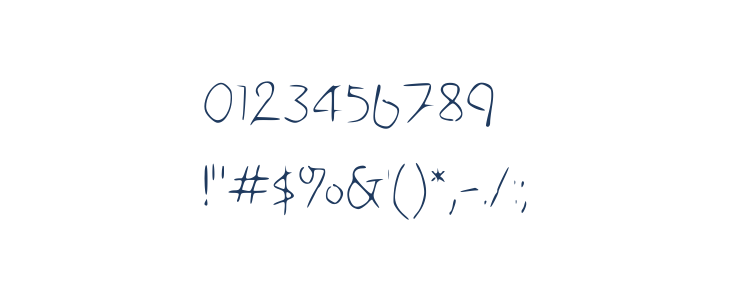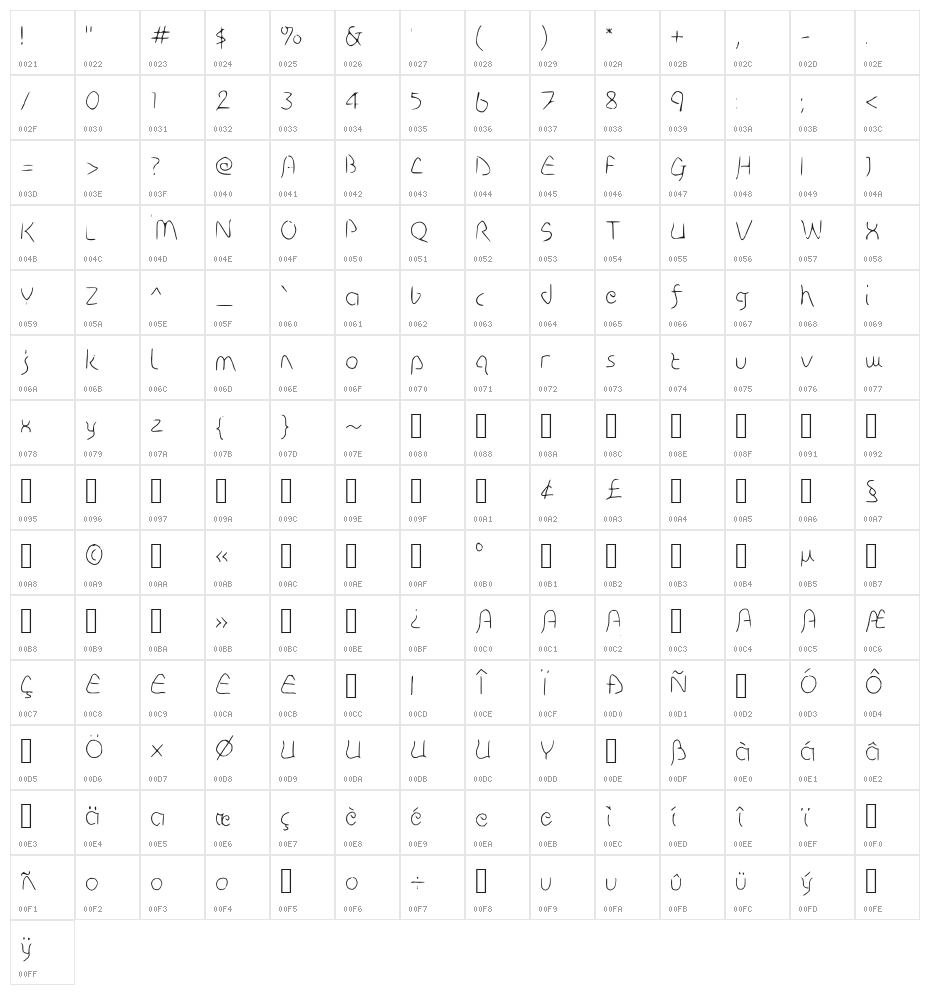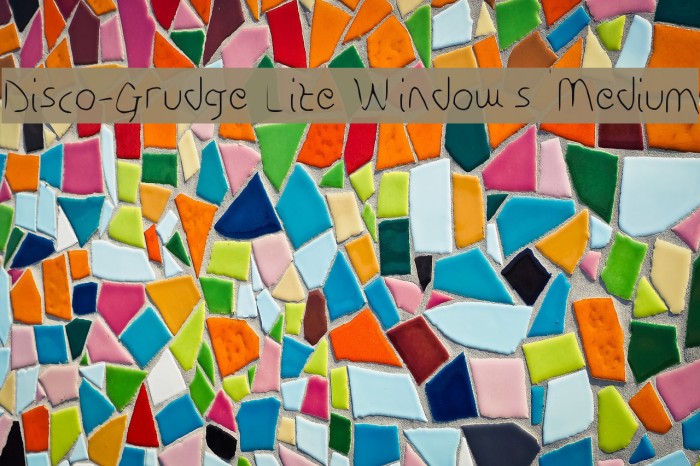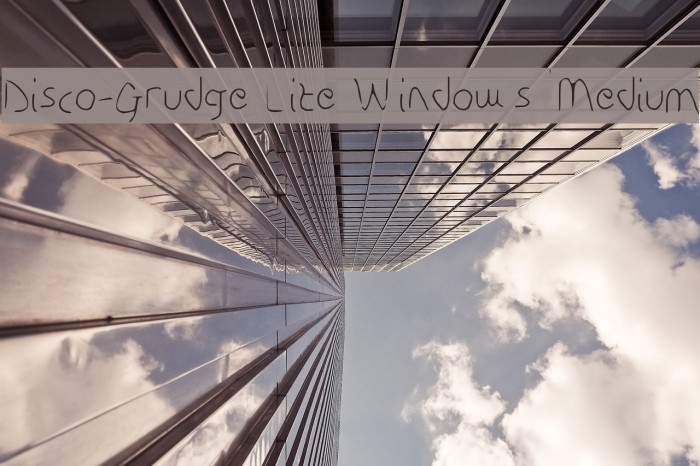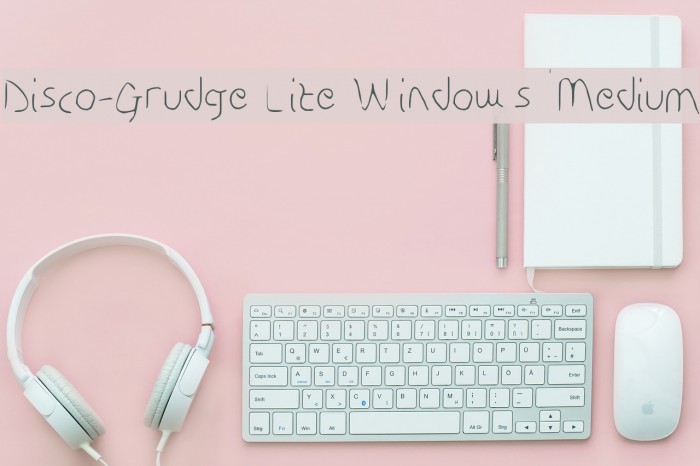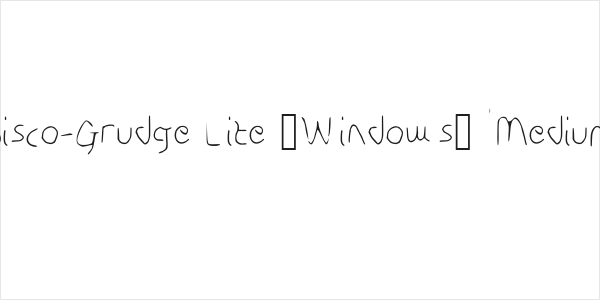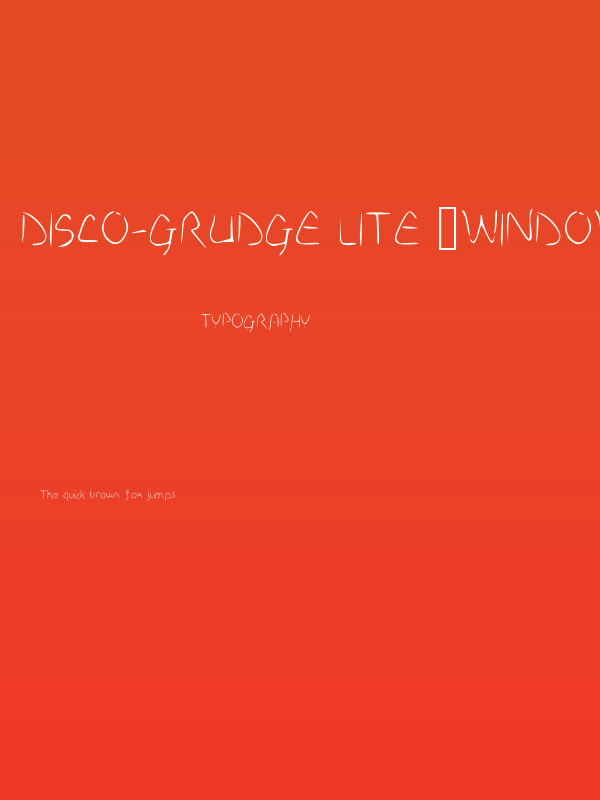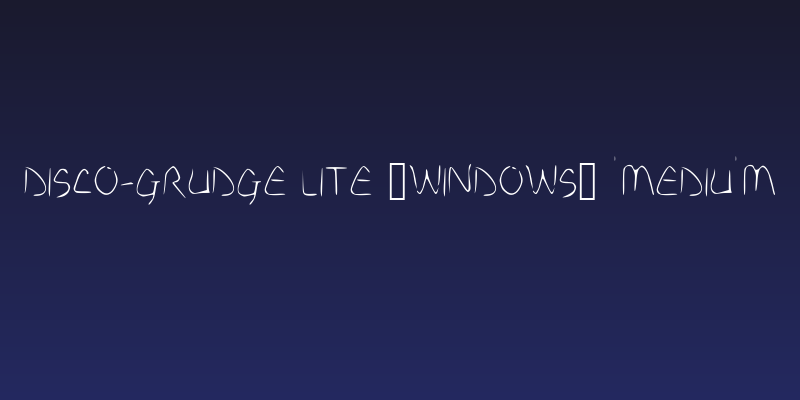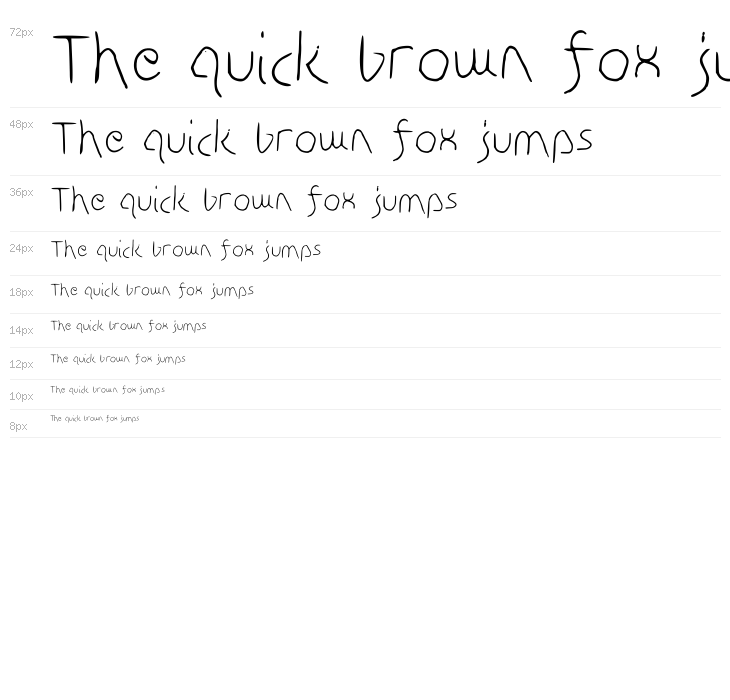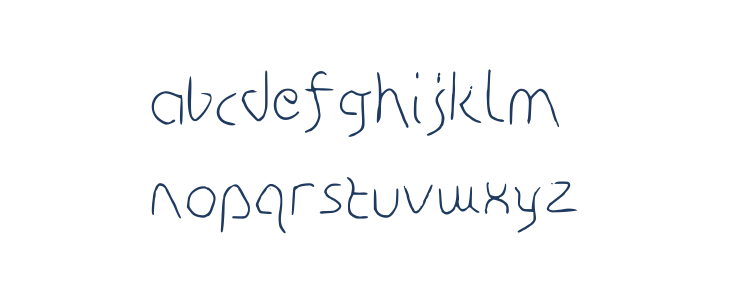
Disco-Grudge Lite [Windows] Medium Font
Disco-Grudge Lite [Windows] Medium Description
This font features a unique blend of modern and grunge aesthetics, characterized by its irregular, hand-drawn appearance. The letters have a distinct, slightly distorted form, giving them a dynamic and edgy feel. The strokes are uneven, with some characters having elongated or exaggerated curves, adding to its unconventional style. The font maintains a consistent height across both uppercase and lowercase letters, while the numbers and special characters follow the same design principles, ensuring a cohesive look. This font's playful yet rebellious nature makes it stand out, offering a fresh take on traditional typography.
| Overall Style | Modern, Grunge |
| Use Case | Logos, Posters, Album Covers |
| Proposed Projects | Ideal for music album covers, edgy branding, streetwear designs, or event posters. |